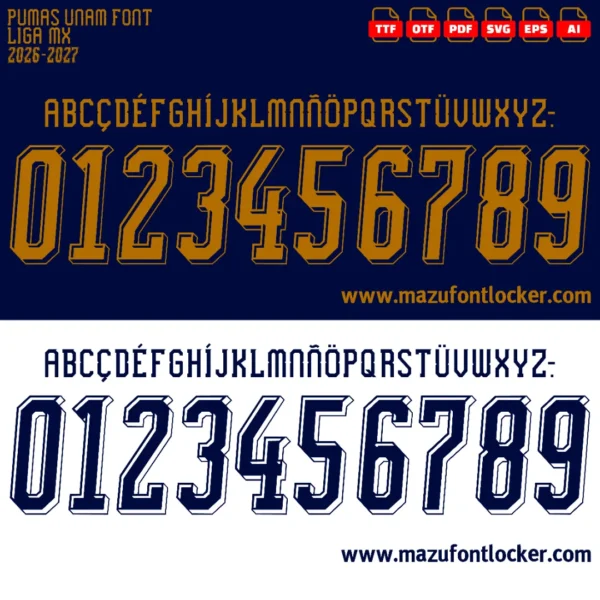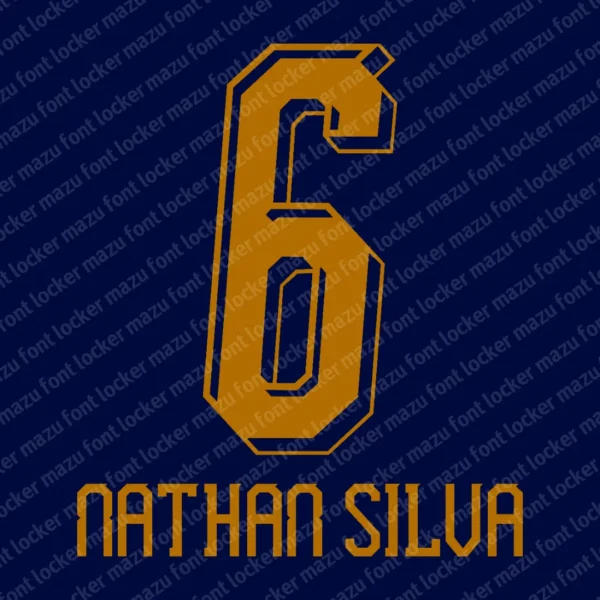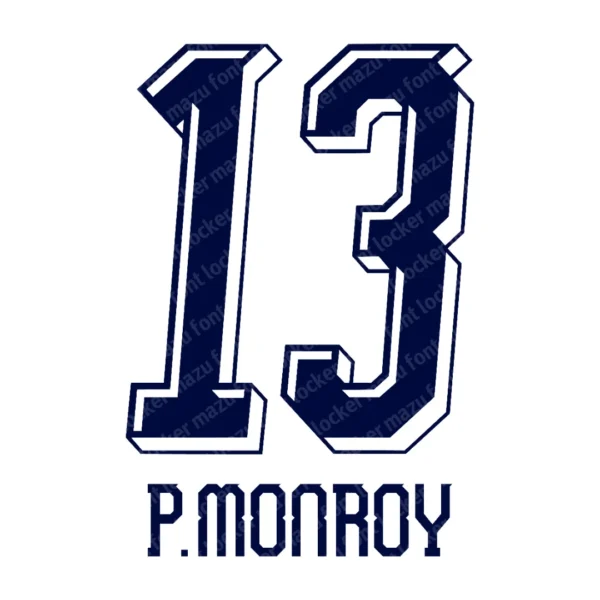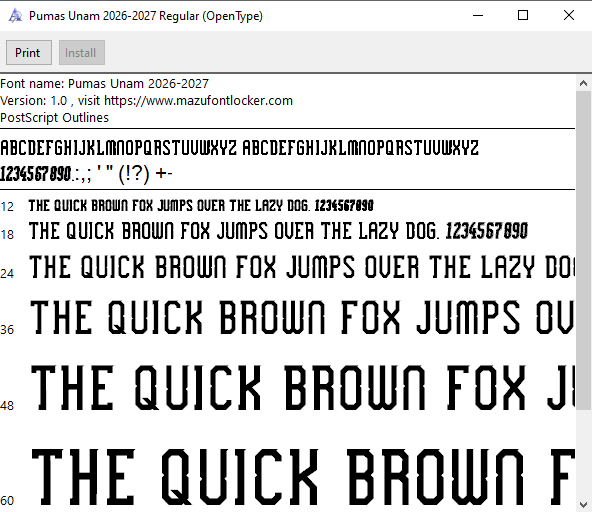
Pumas UNAM 2026-2027 Font Vector – Stunning Auriazules Pride Masterpiece
This premium font captures the bold, university-forged, lion-hearted match lettering that embodies the relentless Pumas UNAM spirit — delivering authentic Mexico City passion, explosive Olímpico Universitario energy, unwavering resilience, tactical brilliance, legendary warrior mentality, and the unstoppable blue-and-gold roar that commands respect across Mexico and North America.
Pumas UNAM 2026-2027 Font Vector – Powerful Auriazules Heritage Typeface
The Pumas UNAM 2026-2027 Font Vector is a premium typeface that accurately recreates the official match lettering worn by Pumas UNAM during the exciting 2026-2027 season. This high-quality vector font kit captures the bold, modern, and unmistakable typography associated with one of Mexico’s most iconic football clubs, perfectly complementing the legendary university-inspired identity of Los Auriazules. The 2026-2027 campaign also marked the beginning of a new era with Puma becoming the club’s official kit supplier. :contentReference[oaicite:0]{index=0}
Designed for professional designers, football enthusiasts, and passionate Pumas supporters, the Pumas UNAM 2026-2027 Font Vector delivers exceptional authenticity for creating realistic jersey mockups, football merchandise, social media graphics, match posters, and custom fan artwork. It pairs perfectly with the club’s famous navy-and-gold visual identity that has become synonymous with Mexican football culture.
Why Choose Pumas UNAM 2026-2027 Font Vector
This font stands out thanks to its precise vector construction and authentic club styling. Every character has been carefully recreated to match the official shirt lettering used throughout the 2026-2027 season. Whether you’re producing realistic kit templates or creating eye-catching football content, the Pumas UNAM 2026-2027 Font Vector delivers a genuine professional appearance.
The lettering featured in the Pumas UNAM 2026-2027 Font Vector combines bold geometric shapes with clean modern proportions. The result is a highly readable and professional design that reflects the strength, prestige, and tradition of Club Universidad Nacional.
The numerals feature confident curves, sharp detailing, and excellent spacing for maximum readability. Built entirely as scalable vectors, every number remains crisp for jersey customization, digital graphics, posters, and large-format printing.
- Complete uppercase A–Z alphabet and numbers 0–9 in authentic Pumas UNAM 2026-2027 style
- Includes authentic crest glyph placement beneath player numbers
Pumas UNAM 2026-2027 Season
The 2026-2027 season represents a significant chapter in the history of Pumas UNAM as the club competes in Liga MX while entering a new partnership with Puma as its official kit manufacturer. The new kits feature the traditional navy and gold colors alongside the iconic oversized puma emblem that has become one of the most recognizable shirt designs in world football. :contentReference[oaicite:1]{index=1}
Supported by one of the most passionate fanbases in Mexican football, Pumas continues to uphold its rich university heritage while developing talented players and competing against the strongest clubs in Liga MX. The club remains a symbol of pride for the National Autonomous University of Mexico and football supporters throughout the country.
The Pumas UNAM 2026-2027 Font Vector is an independently designed typeface package inspired by the official shirt lettering used during the 2026-2027 season. It has been carefully recreated for football enthusiasts, graphic designers, collectors, and creators producing custom jersey concepts, nostalgic football artwork, and fan-made projects.